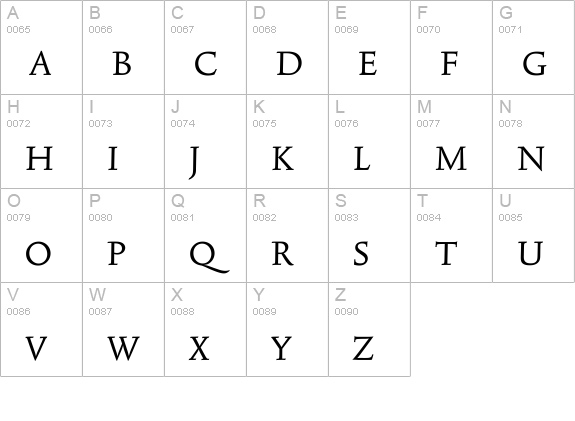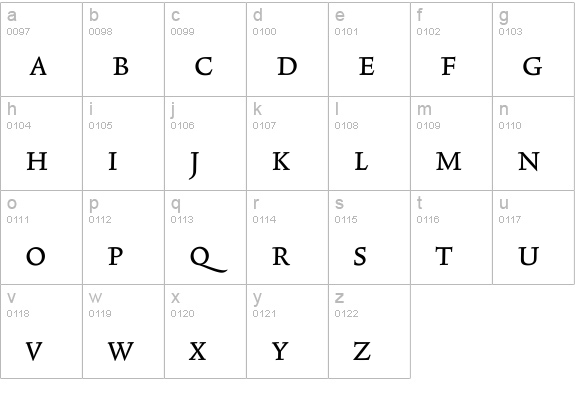
TriniteNo3-RomanWideExp font is a stunning display typeface that exudes elegance and sophistication. Its wide and bold letterforms make a statement, commanding attention and adding a touch of grandeur to any design project. This font is meticulously crafted, with precise attention to detail in every curve and stroke. The clean lines and smooth edges give it a timeless appeal, making it suitable for a wide range of applications, from logos and branding to headlines and titles. TriniteNo3-RomanWideExp is not only visually striking but also highly legible. Each letter is carefully designed to ensure optimal readability, even at smaller sizes, making it perfect for both print and digital media. One of the standout features of this font is that it is freely available to download at FontsMarket.com. This means that designers and creatives can easily access and utilize this beautiful typeface in their projects without any cost. The availability of this font for free allows for greater flexibility and accessibility, enabling designers to explore its potential in various creative endeavors. Whether you're looking to elevate the visual impact of your designs or add a touch of sophistication to your branding, TriniteNo3-RomanWideExp font is an excellent choice. Its distinctive style and versatility make it a valuable asset for any designer. So why wait? Head over to FontsMarket.com and download this remarkable font for free today!